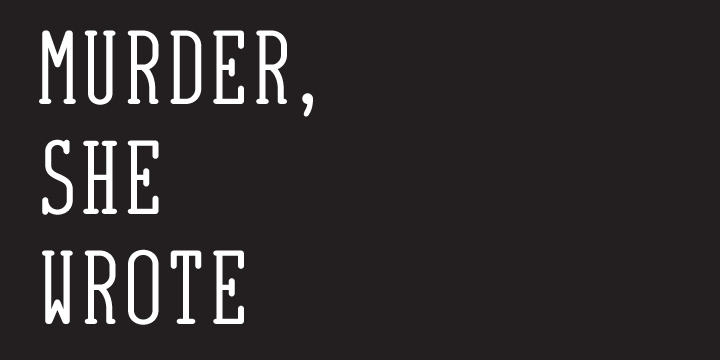
Designed in 2005 and then lost in Erik Bertell’s endless archive of unfinished fonts, Jessica is finally released under Fenotype.
Typewriter face with a sinister mood, its peculiar original features have been retained. On the other hand, the font has had a monospacing treatment and some Open Type programming added for a more contemporary feel. The extended character set covers most European languages.